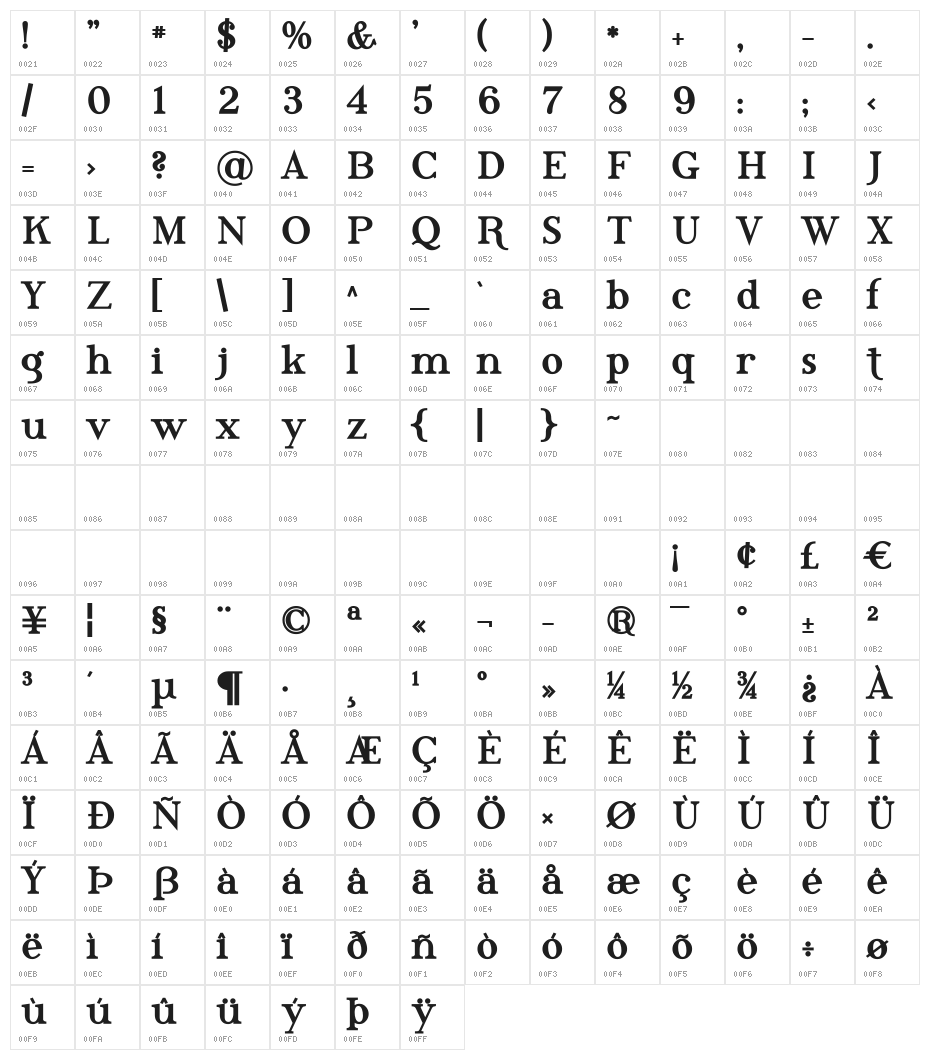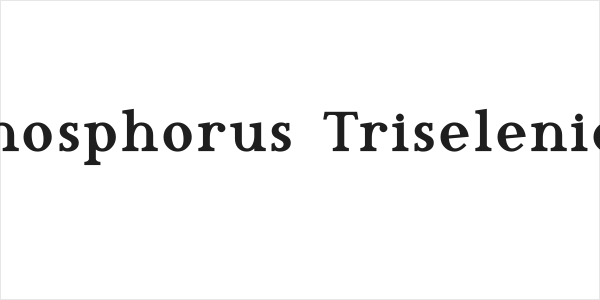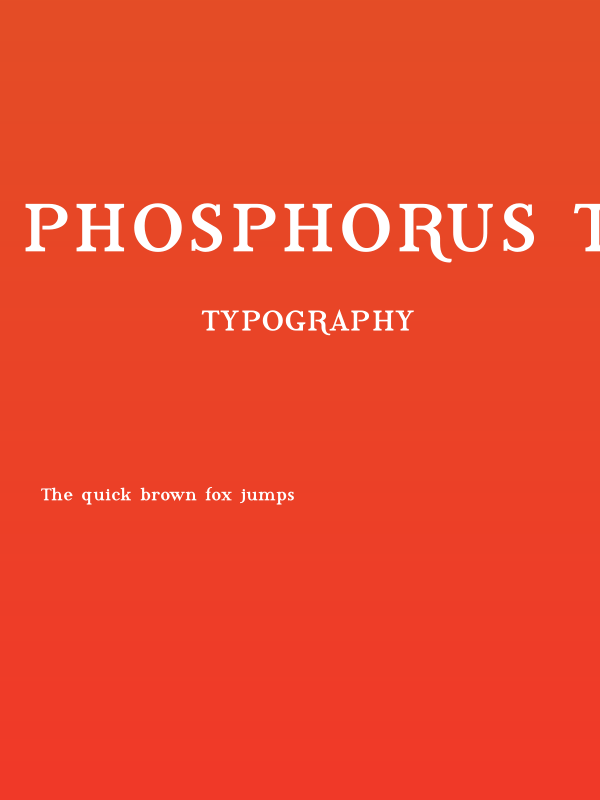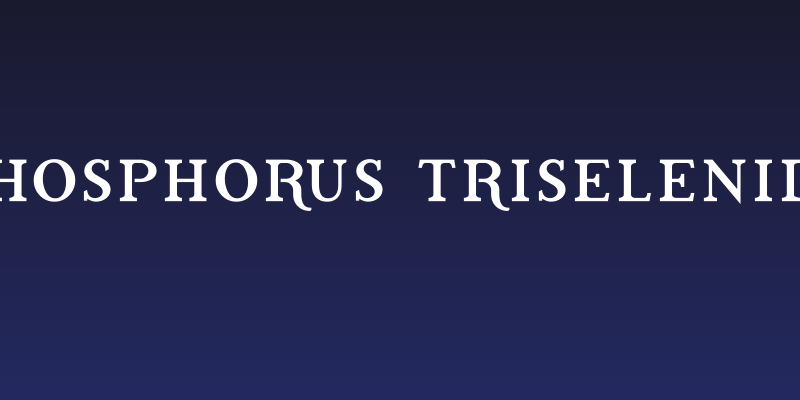
Phosphorus Triselenide Font
Phosphorus Triselenide Description
This font exhibits a classic serif style with strong, bold strokes and high contrast between thick and thin lines. The serifs are pronounced, adding a touch of elegance and tradition to the overall appearance. The uppercase letters are stately and commanding, while the lowercase letters maintain a balanced and readable form. The numerals are clear and distinct, making them suitable for both display and text settings. Special characters are well-defined, ensuring versatility in various types of content. The overall design is timeless, making it suitable for a wide range of applications.